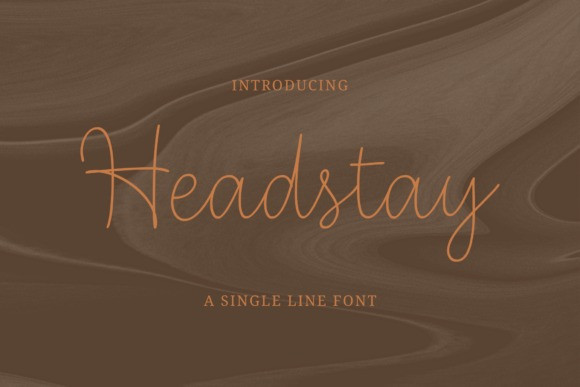
Headstay Font
Headstay is a beautiful and refined script font. It has a classy, elegant and modern look that can be used for logos, branding, invitations, stationery, wedding designs, social media posts, and much more!